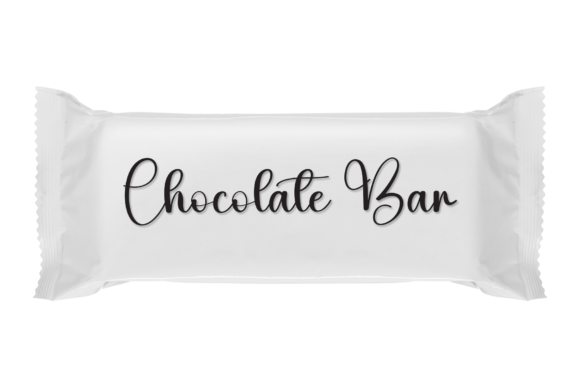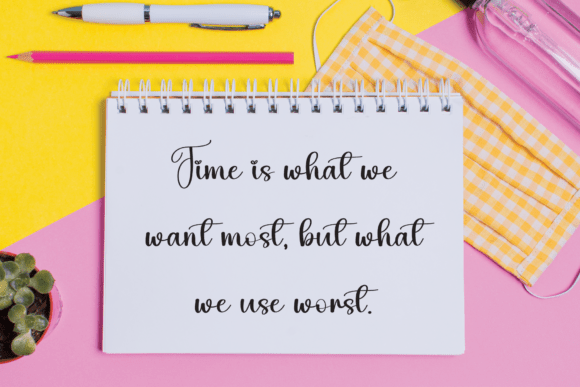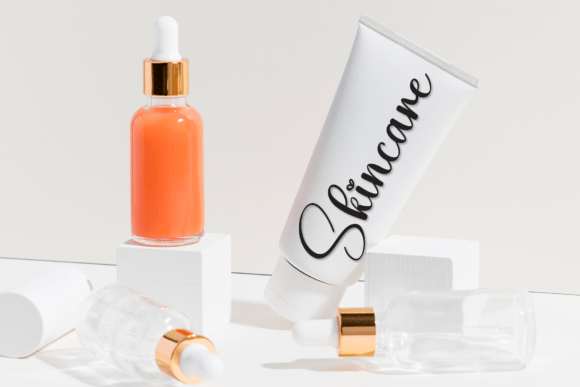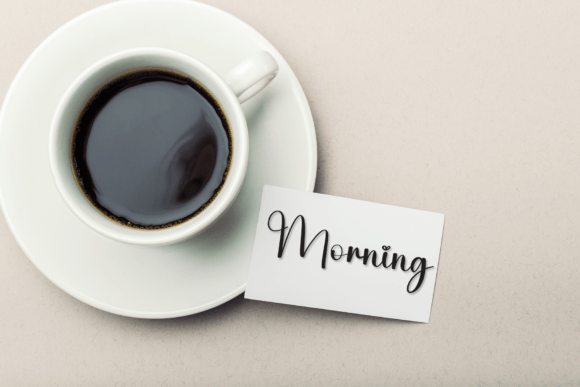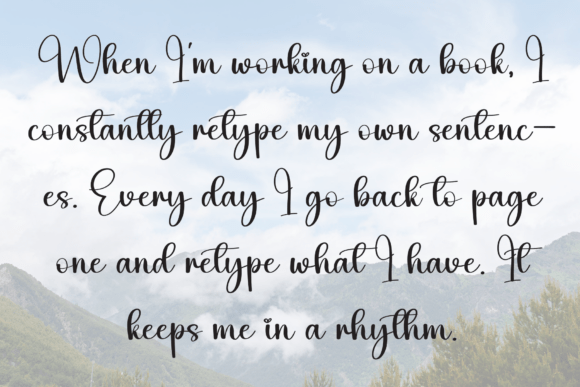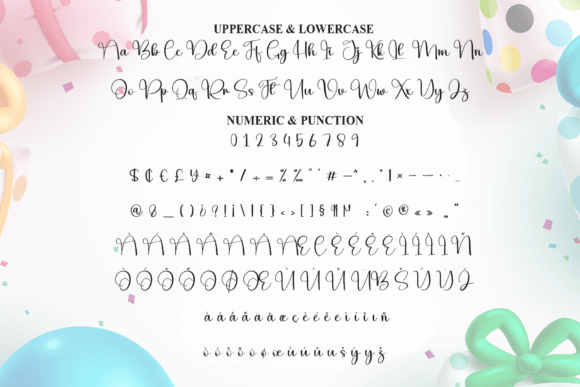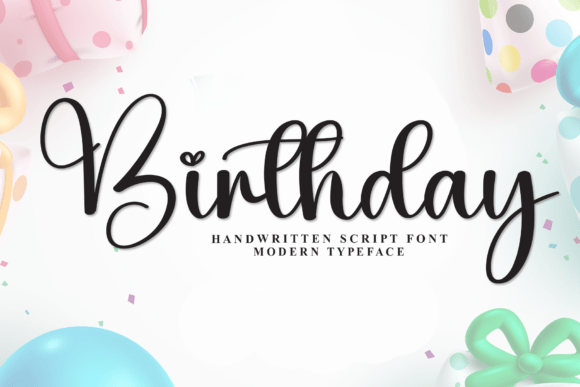
Introducing Birthday Font: Elevate Your Designs with Elegance and Sophistication
Are you searching for a font that adds a touch of luxury and modern charm to your designs? Look no further than Birthday Font, a stunning script font that embodies the perfect blend of elegance and contemporary style. With its beautiful, hand-crafted letterforms, fluid curves, and graceful strokes, this font is sure to elevate your designs and leave a lasting impression.
The Beauty of Hand-Drawn Calligraphy with a Modern Twist
Birthday Font is inspired by the art of hand-drawn calligraphy, but with a modern twist that sets it apart from traditional fonts. Each letterform is carefully crafted to exude a sense of sophistication and refinement, making it perfect for designs that require a high level of elegance. The font’s fluid curves and graceful strokes give it a natural flow that is both visually appealing and engaging.
Versatility and Visual Appeal
One of the standout features of Birthday Font is its versatility. Whether you’re designing a logo, invitation, packaging, or social media graphics, this font is sure to add a refined and sophisticated touch to your work. Its polished details and natural flow make it easy to read and understand, while its elegant style ensures that your designs will stand out from the crowd.
Birthday Font is a must-have for designers and crafters who want to add a touch of luxury and sophistication to their work. Whether you’re creating wedding invitations, branding materials, or social media graphics, this font is sure to impress. Its unique blend of traditional and modern styles makes it perfect for a wide range of design projects, from elegant wedding designs to modern branding materials.
• Elegant script font: Birthday Font is a beautiful script font that adds a touch of luxury and sophistication to any design.
• Hand-crafted letterforms: Each letterform is carefully crafted to exude a sense of elegance and refinement.
• Fluid curves and graceful strokes: The font’s fluid curves and graceful strokes give it a natural flow that is both visually appealing and engaging.
• Versatile and flexible: Birthday Font is perfect for a wide range of design projects, from logos and invitations to packaging and social media graphics.
• Polished details: The font’s polished details make it easy to read and understand, while its elegant style ensures that your designs will stand out from the crowd.
• Pair it with a sans-serif font: Pair Birthday Font with a sans-serif font for a modern and elegant look.
• Use it for headings and titles: Use Birthday Font for headings and titles to add a touch of luxury and sophistication to your designs.
• Experiment with different colors: Experiment with different colors to find the perfect look for your design.
• Use it for branding materials: Use Birthday Font for branding materials, such as logos and business cards, to create a cohesive and sophisticated look.
In conclusion, Birthday Font is a stunning script font that adds a touch of luxury and sophistication to any design. With its elegant letterforms, fluid curves, and polished details, this font is perfect for designers and crafters who want to create beautiful and engaging designs. Whether you’re designing a logo, invitation, packaging, or social media graphics, Birthday Font is sure to impress.